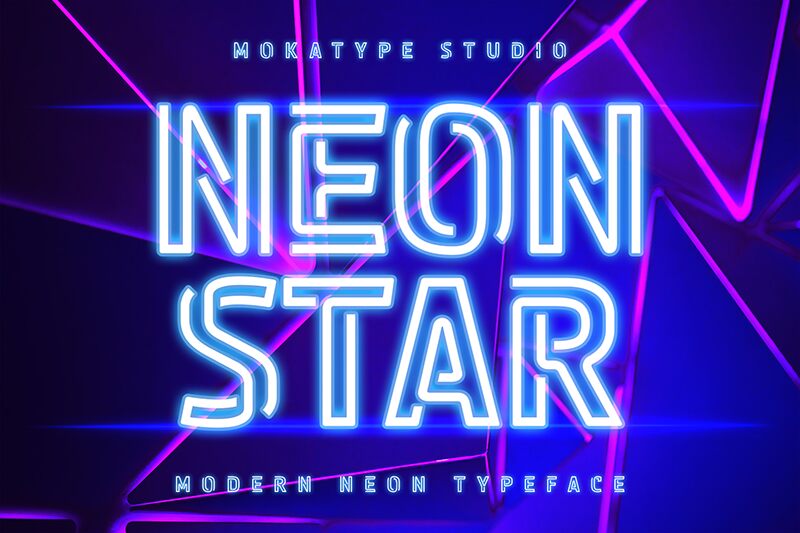
Neonstar Trial
Neonstar font by Moka Type Studio is a free techno display font. It brings together clean geometric letterforms with minimalistic style, so they’re an exceptional tool for futuristic and modern designs that require unique resources. Present your vision as you capture the sights of each section with this technical design.
Designers can finally have that perfect final touch as Neonstar is an ideal choice for posters, banners, magazines, book covers, branding projects (logos), and advertisements. Let it shine for game design or online platforms like websites or apps.